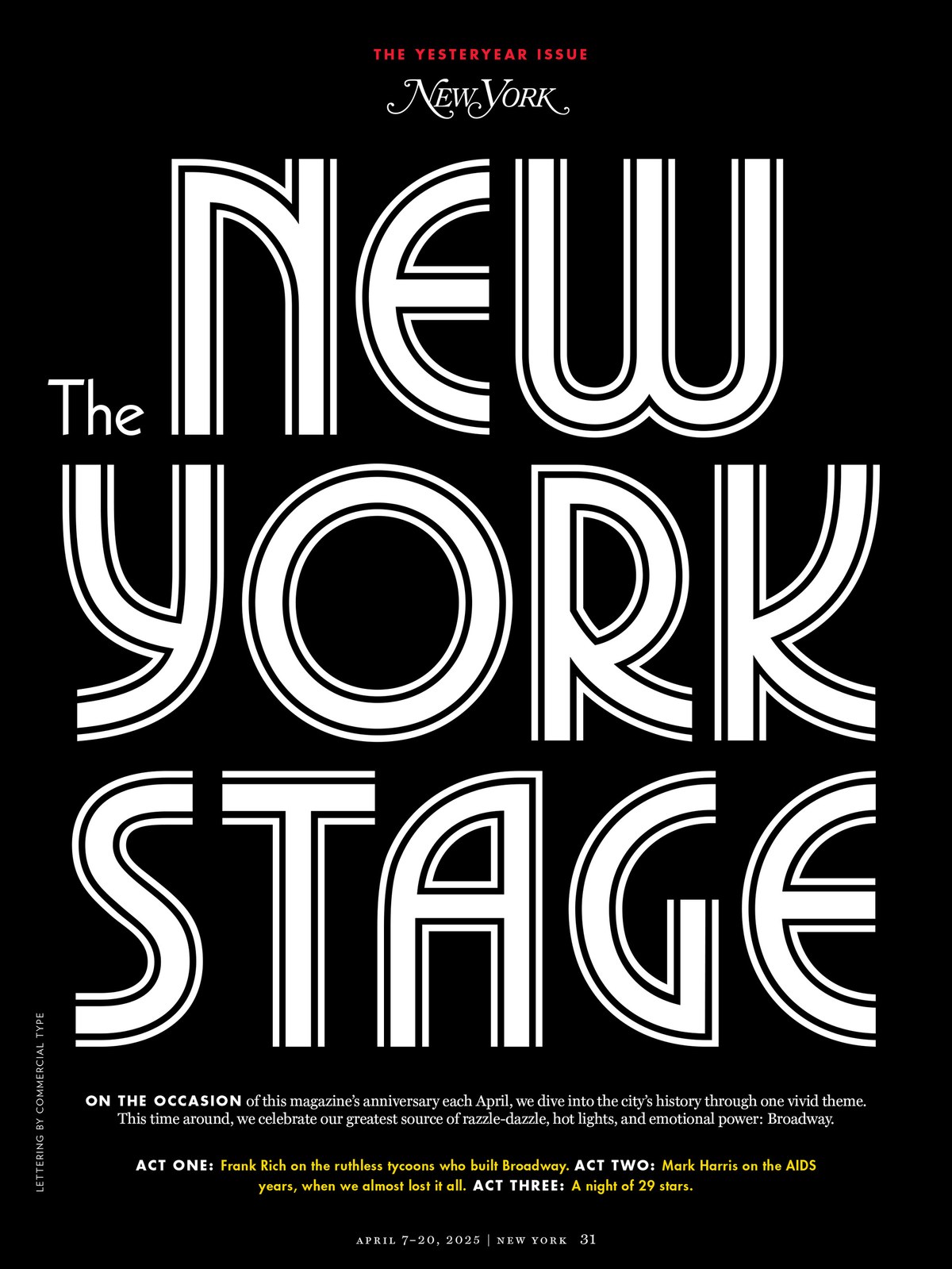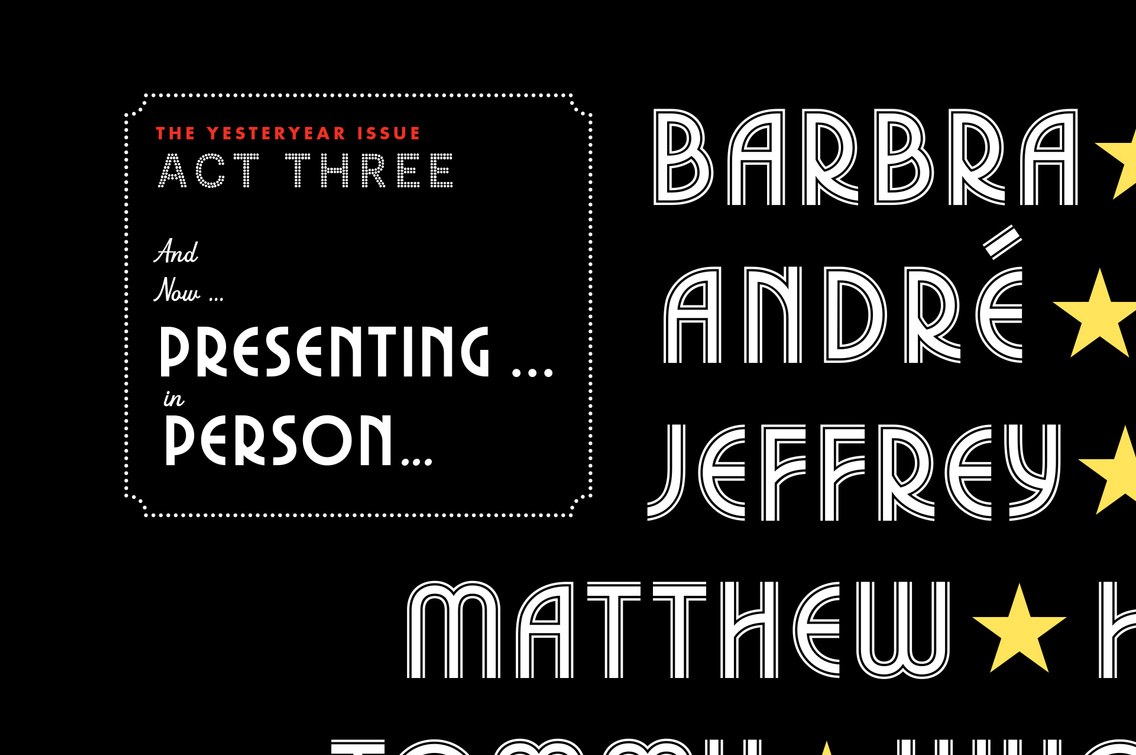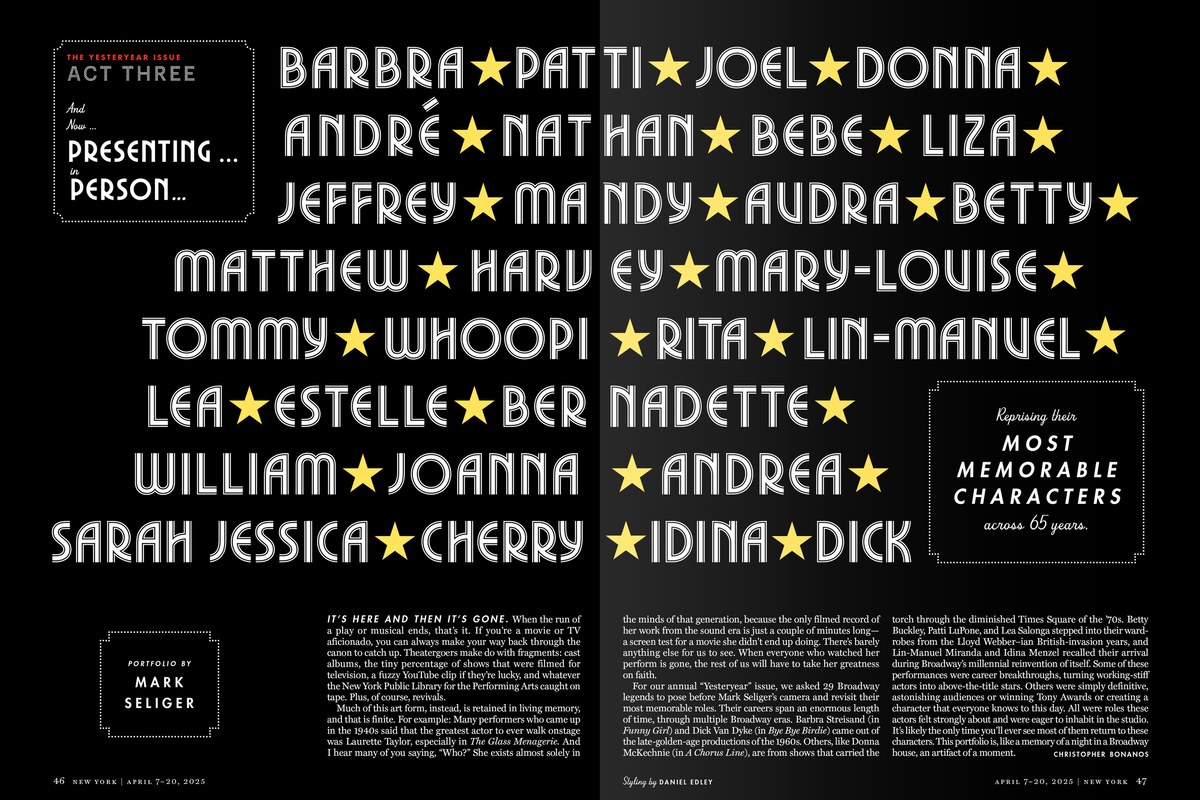
A few days after the issue came out, still curious, we did some more digging and discovered that the Chorus Line poster used Pinto, designed by Roy Sprong in Lightline, Medium, Heavy, Inline, and Shadow styles for Graphic Systems (Rapitype) around 1970. Stumbling across a random book cover completely by chance, Schwartz realized that his memory and imagination actually hewed closer to Michael Chave’s 1969 Marvin when drawing the letters for New York. In retrospect, he’s glad not to have unearthed Pinto until after the fact: He would have felt compelled to engage with it more directly, and the result wouldn’t have been as fresh.